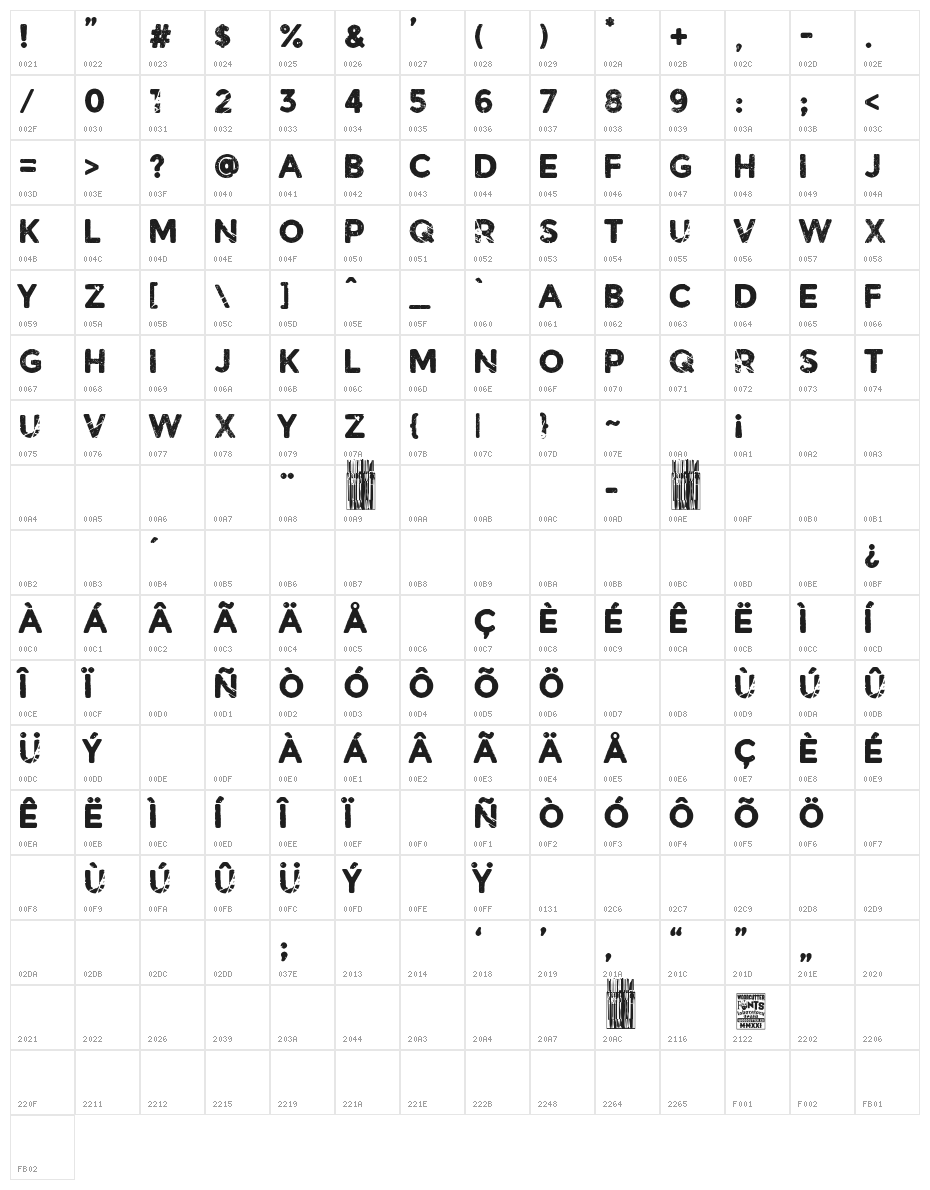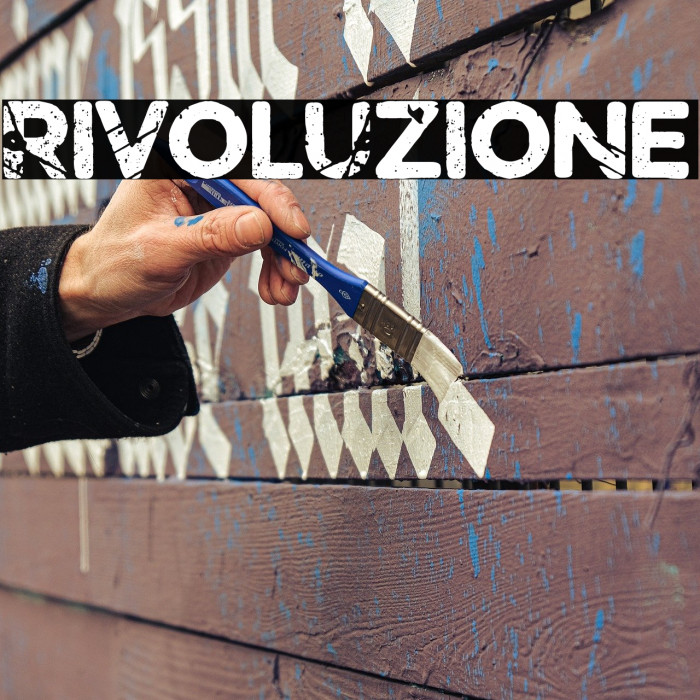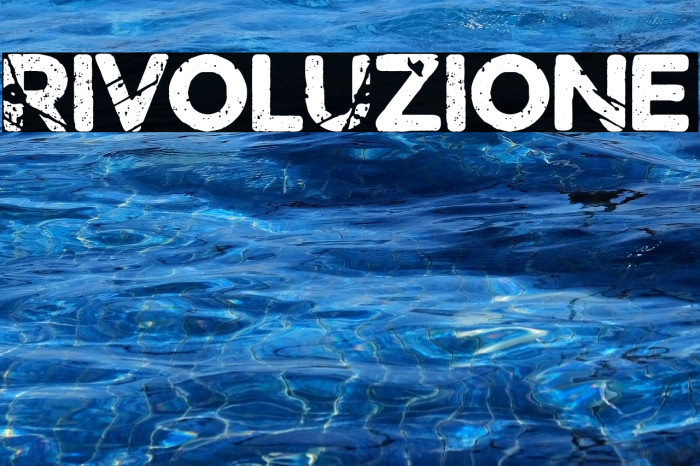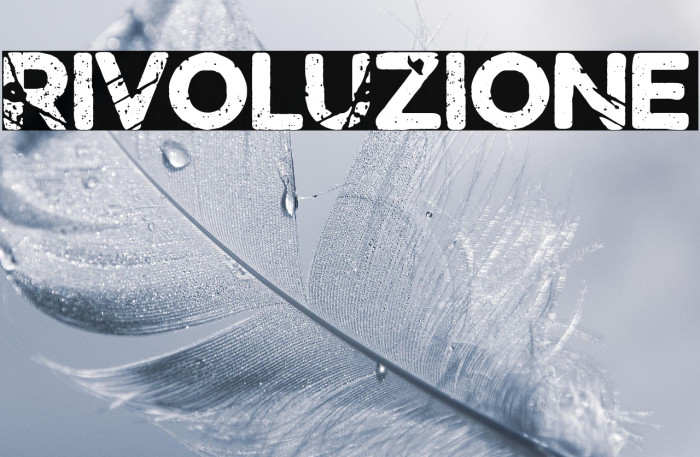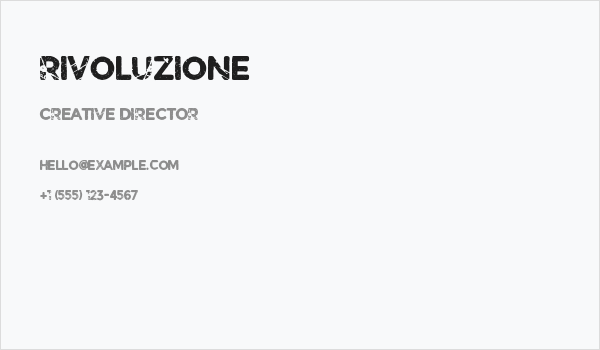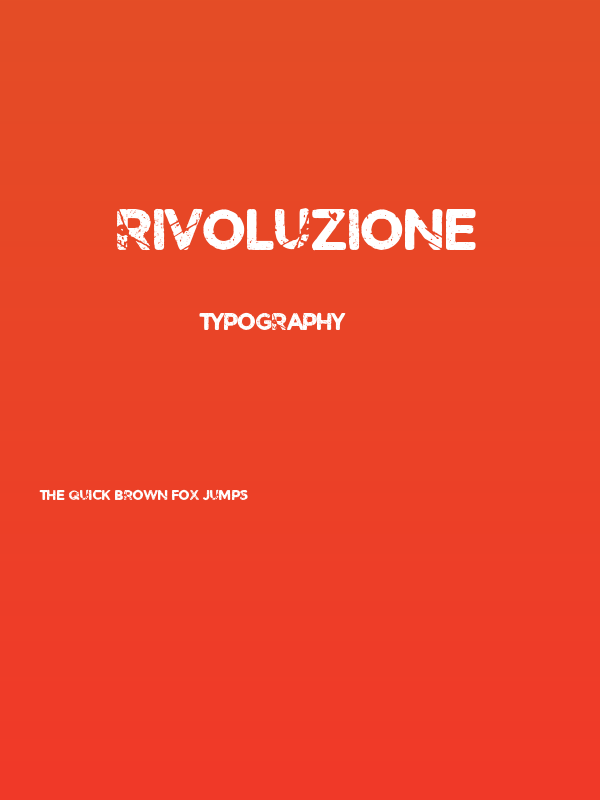
rivoluzione Font
rivoluzione Description
This font features a bold, distressed style with a textured appearance that gives it a rugged, vintage feel. The characters are uniformly bold with a consistent weight, yet the distressed texture adds a unique, worn-out look. The uppercase and lowercase letters maintain a consistent design, with rounded edges and a slightly condensed form. The numbers and special characters follow the same distressed pattern, ensuring a cohesive look across all glyphs. This font is ideal for projects that require a bold statement with a touch of nostalgia or a grunge aesthetic.